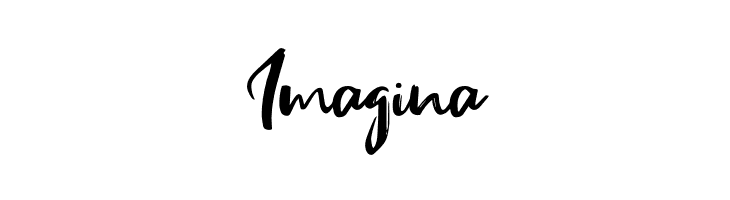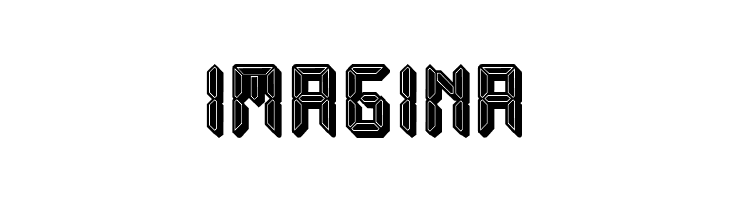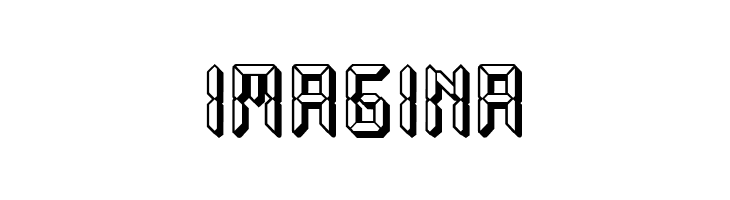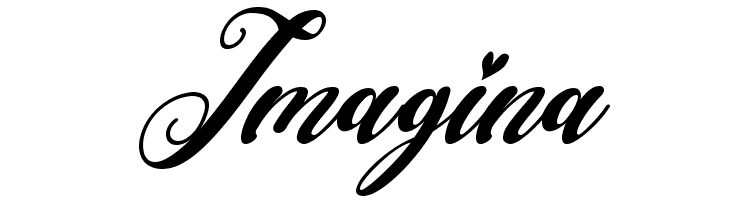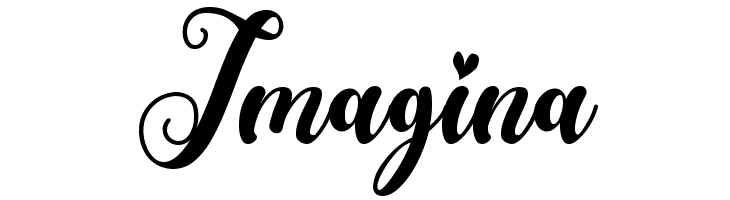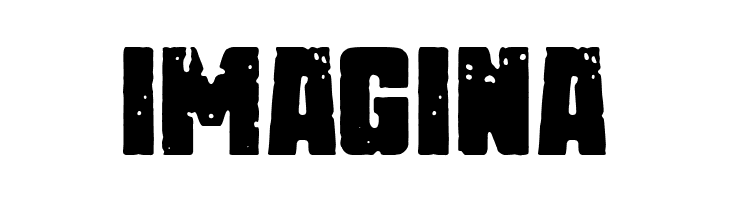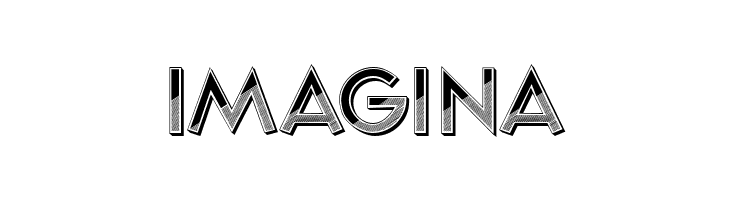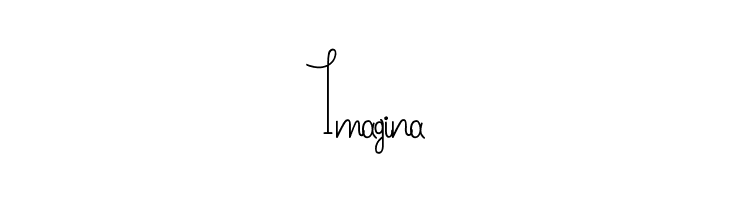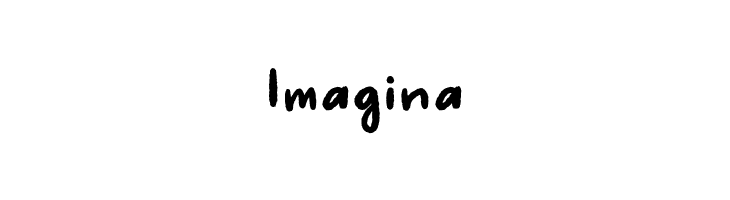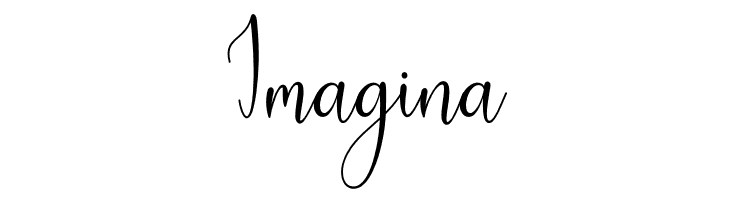
A whimsical and playful script font with elegant, flowing letterforms.
A rugged, textured font with a distressed, organic appearance.
A whimsical, decorative font with intricate curls and loops, perfect for fairy-tale themes.
Ornate, manga-inspired pictorial font with character heads and symbols.
A whimsical, fairy-tale inspired font with decorative swirls and curls.
A bold, retro 3D font with layered outlines and geometric structure.
A bold, 3D font with a playful and whimsical style.
A slender, elegant font with a modern and minimalist aesthetic.
A playful, rounded font with tall, narrow letters and medium contrast.
A bold, distressed font with a rugged, industrial style.
An elegant, flowing script font with graceful loops and smooth cursive strokes.
An elegant, cursive font with flowing curves and ornate flourishes.
A casual, handwritten font with a playful and approachable style.
A bold, cursive font with dynamic and energetic strokes.
Distressed, bold serif font with rough, jagged edges.
A bold, geometric font with a digital, futuristic style.
A bold, geometric font with a 3D effect, perfect for modern designs.
A bold, geometric font with diagonal stripe patterns for a modern, edgy look.
A playful, hand-drawn font with bold, rounded strokes and a casual vibe.
A dynamic, brush-style font with bold, expressive strokes.
A dynamic, brush-style font with expressive strokes and fluid movement.
A bold, three-dimensional font with a modern and dynamic style.
A dot-matrix style font with a retro, pixelated appearance.
A bold, jagged, and edgy font with a punk-inspired, graffiti-like style.
A flowing, elegant script font with bold, expressive characters.
A fluid and elegant script font with dynamic cursive letterforms.
A fluid and elegant script font with a handwritten appearance.
A dynamic, cursive script font with a lively, handwritten style.
A whimsical and elegant script font with flowing, cursive letterforms.
An elegant and flowing script font with intricate swirls and loops.
An elegant and sophisticated cursive font with intricate swirls and flourishes.
A dynamic and elegant script font with flowing, cursive letterforms.
An elegant, flowing script font with graceful curves and loops.